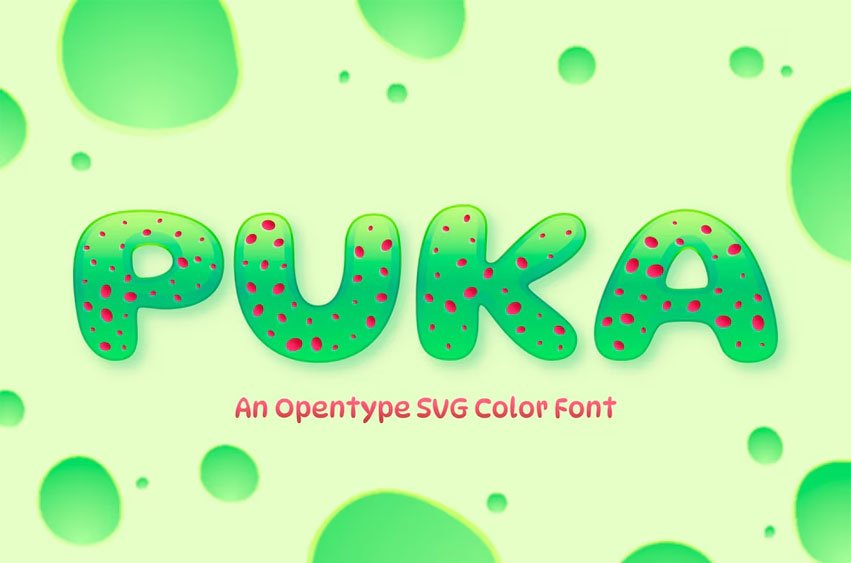
Puka Font is a delightful blend of simplicity and craziness, featuring rounded letters that exude a playful charm. Its simplicity masks a quirky, unpredictable undertone, offering a crazy yet captivating vibe.
With its rounded edges and whimsical style, It strikes a balance between fun and simplicity, making it an engaging choice for projects seeking a touch of playful eccentricity.